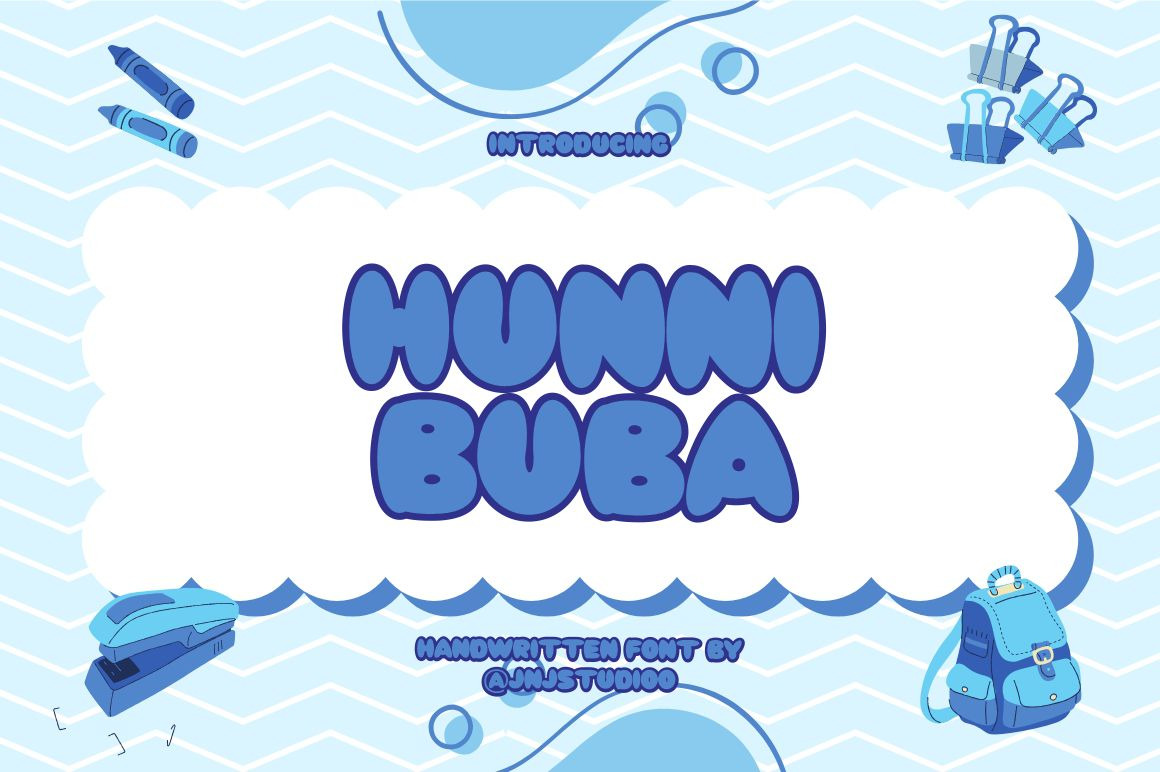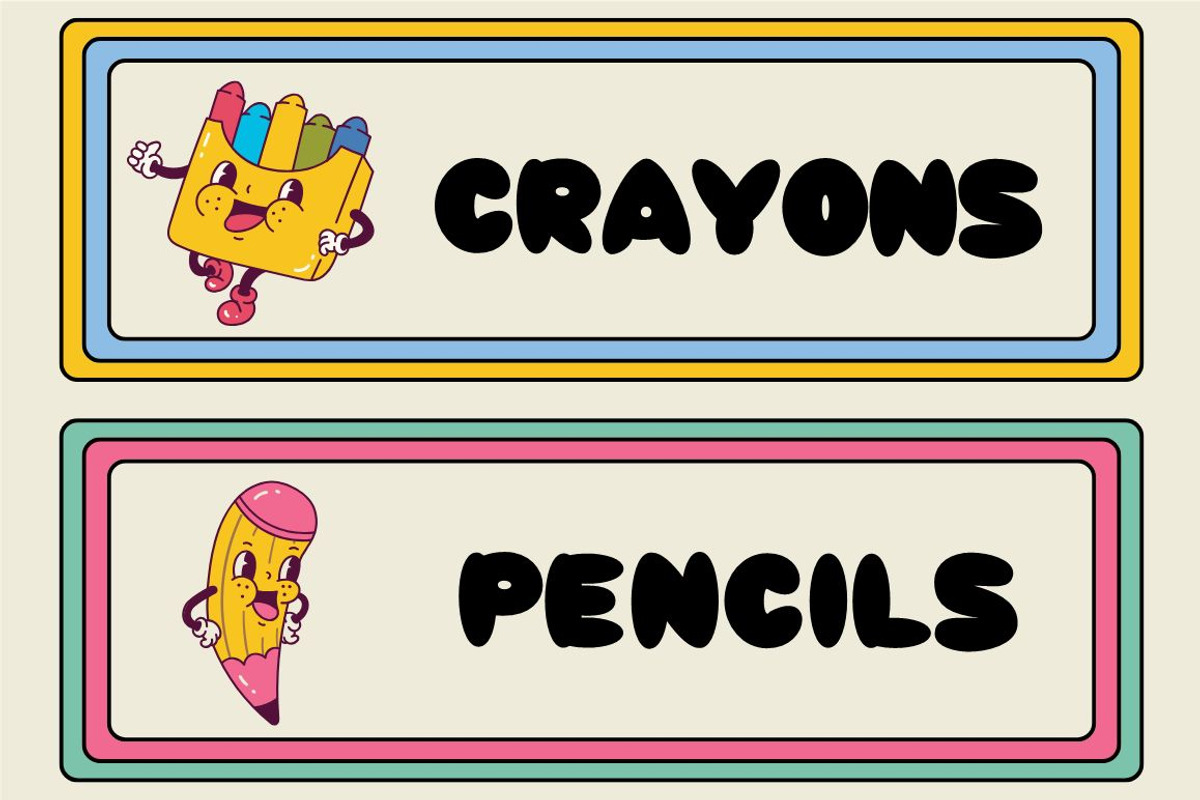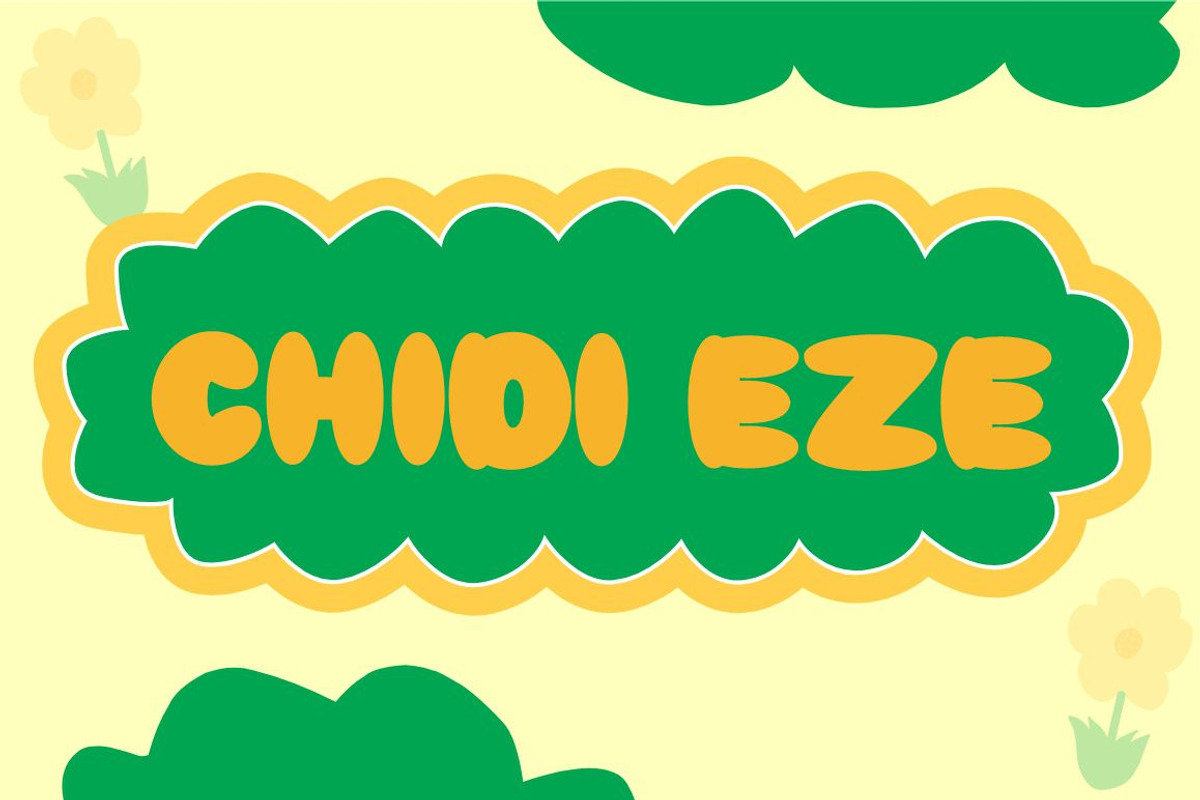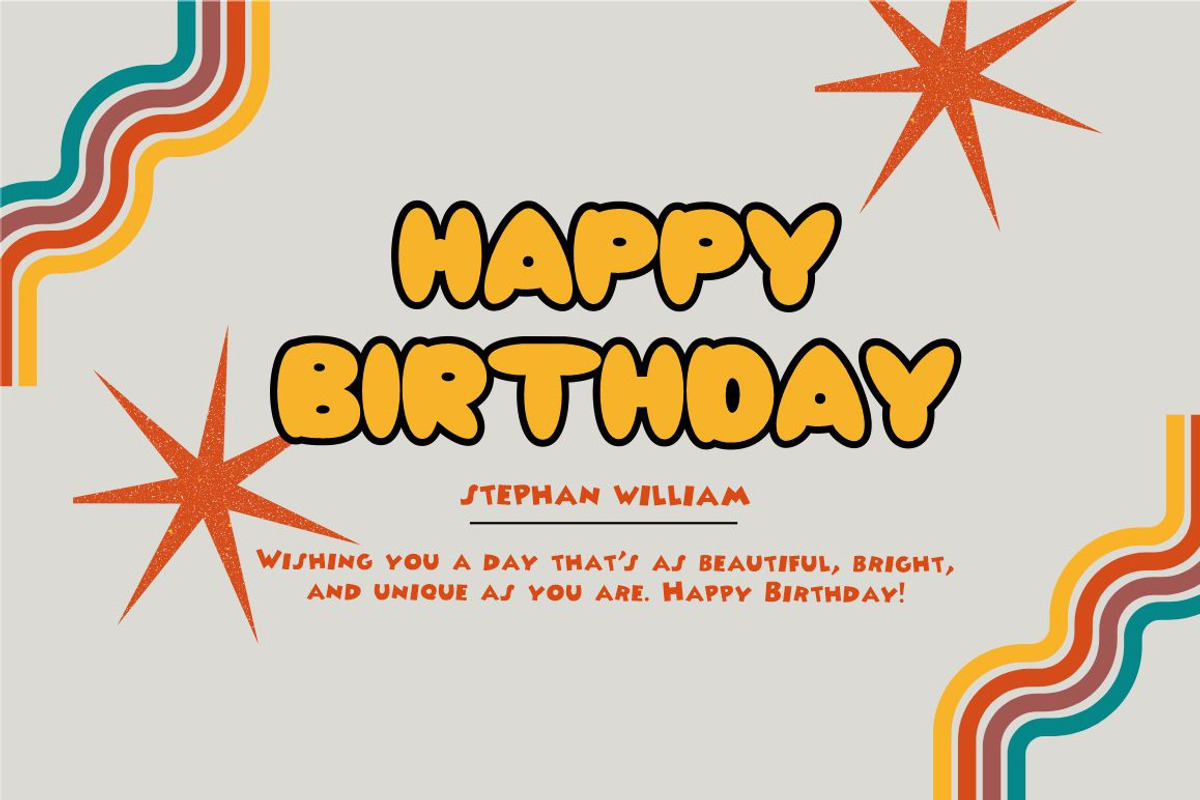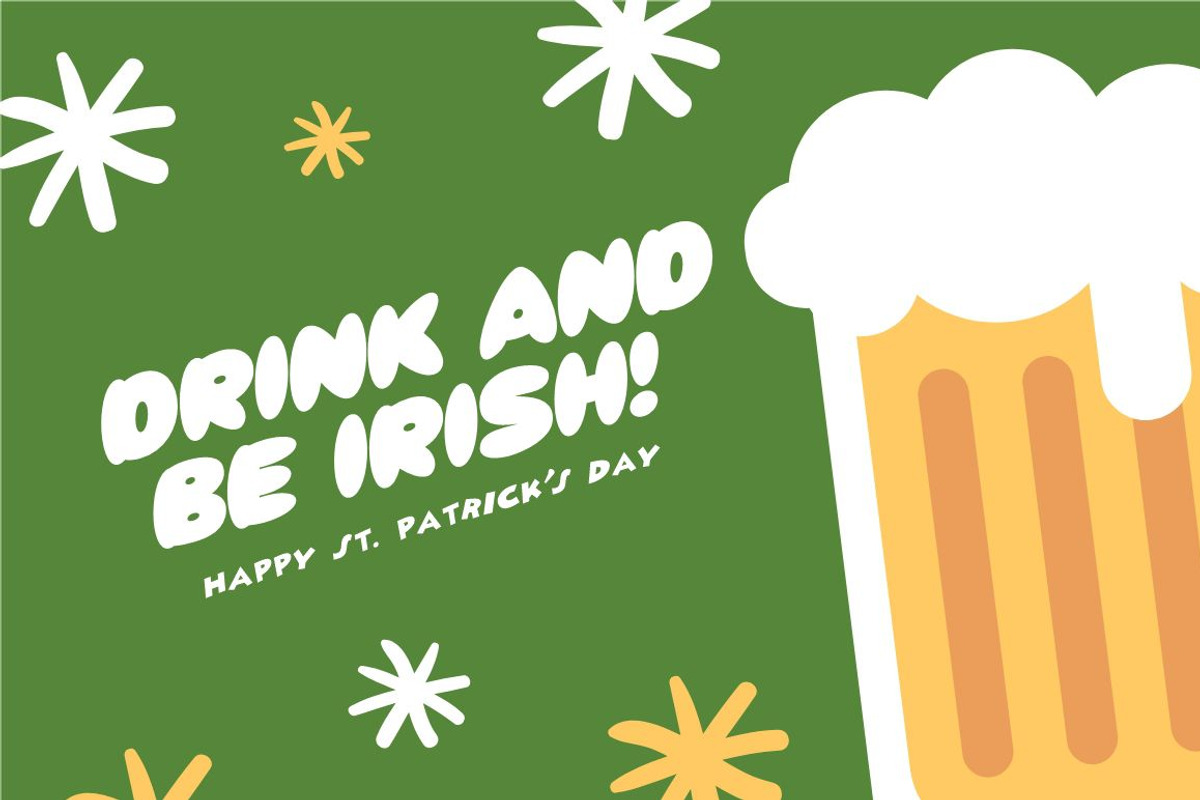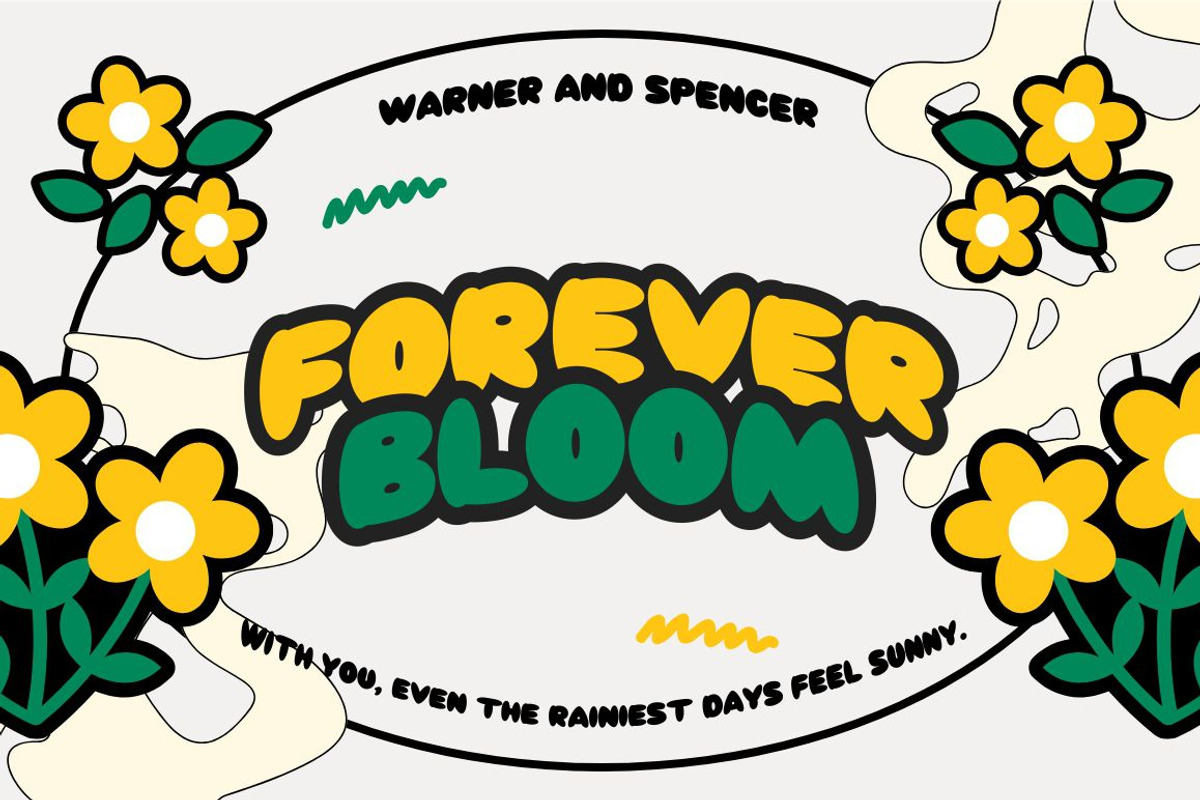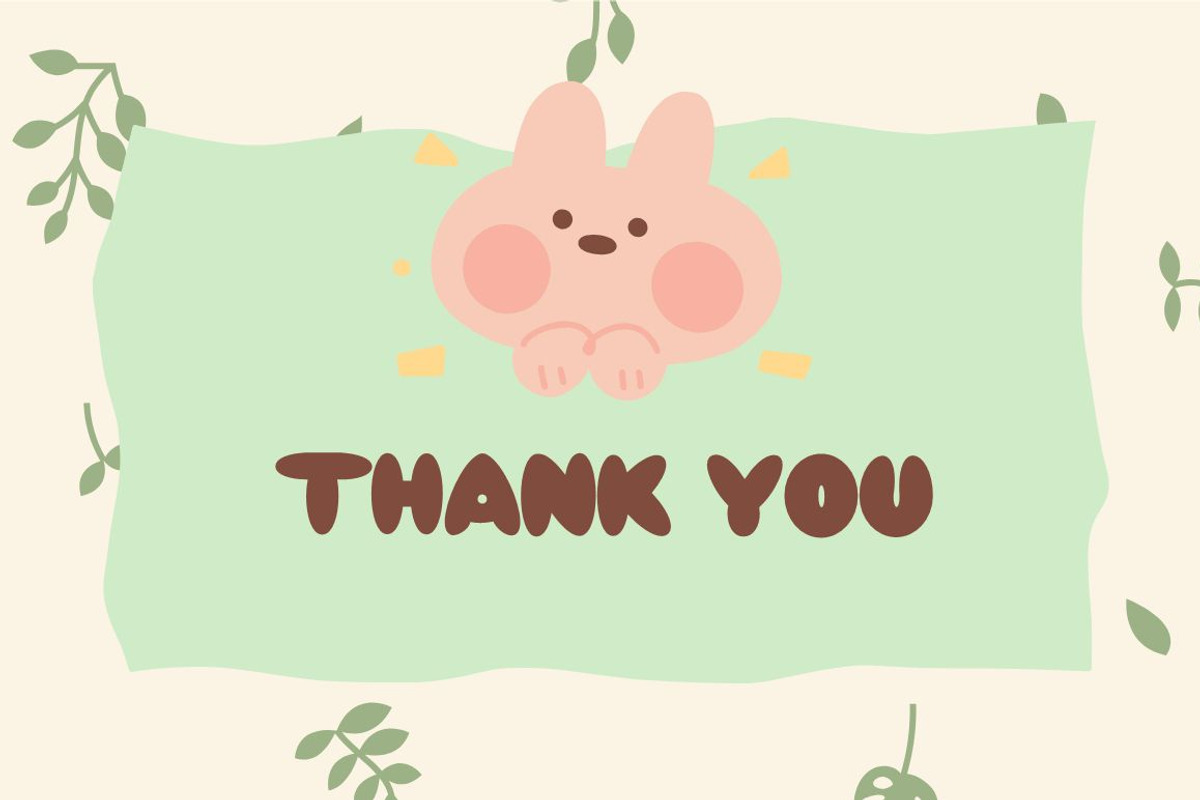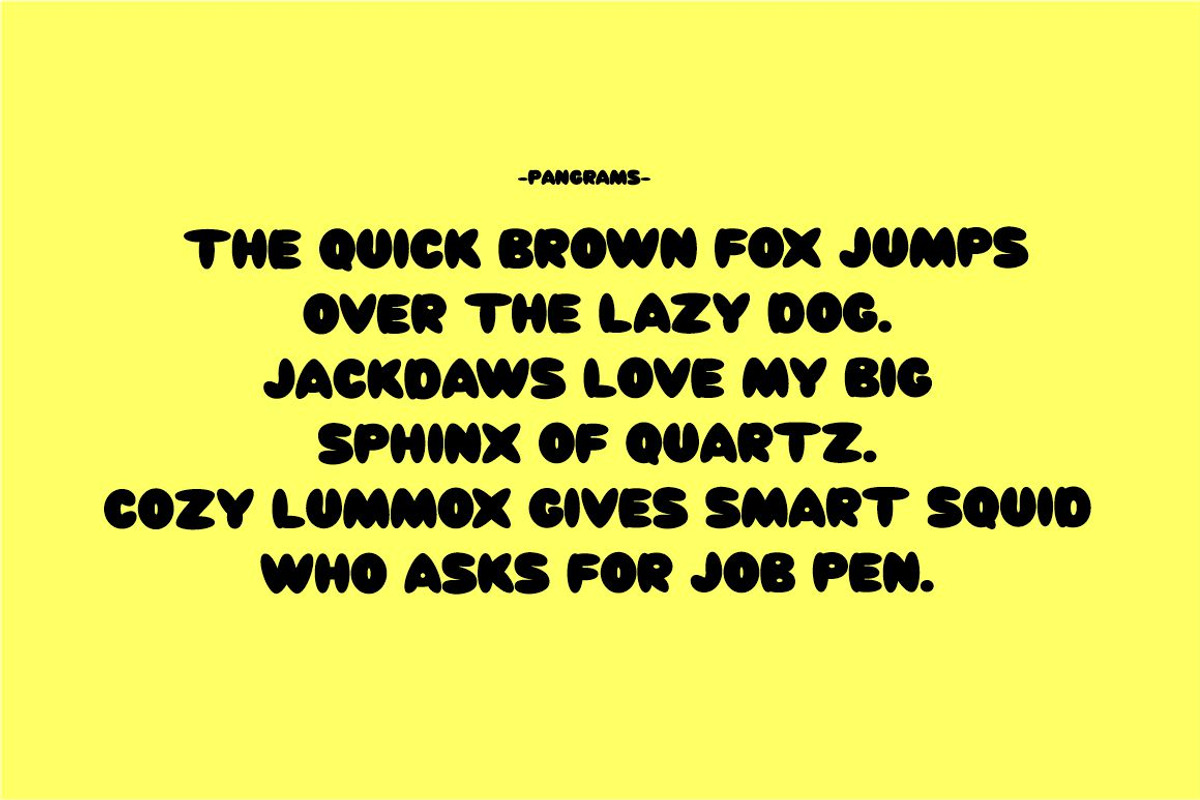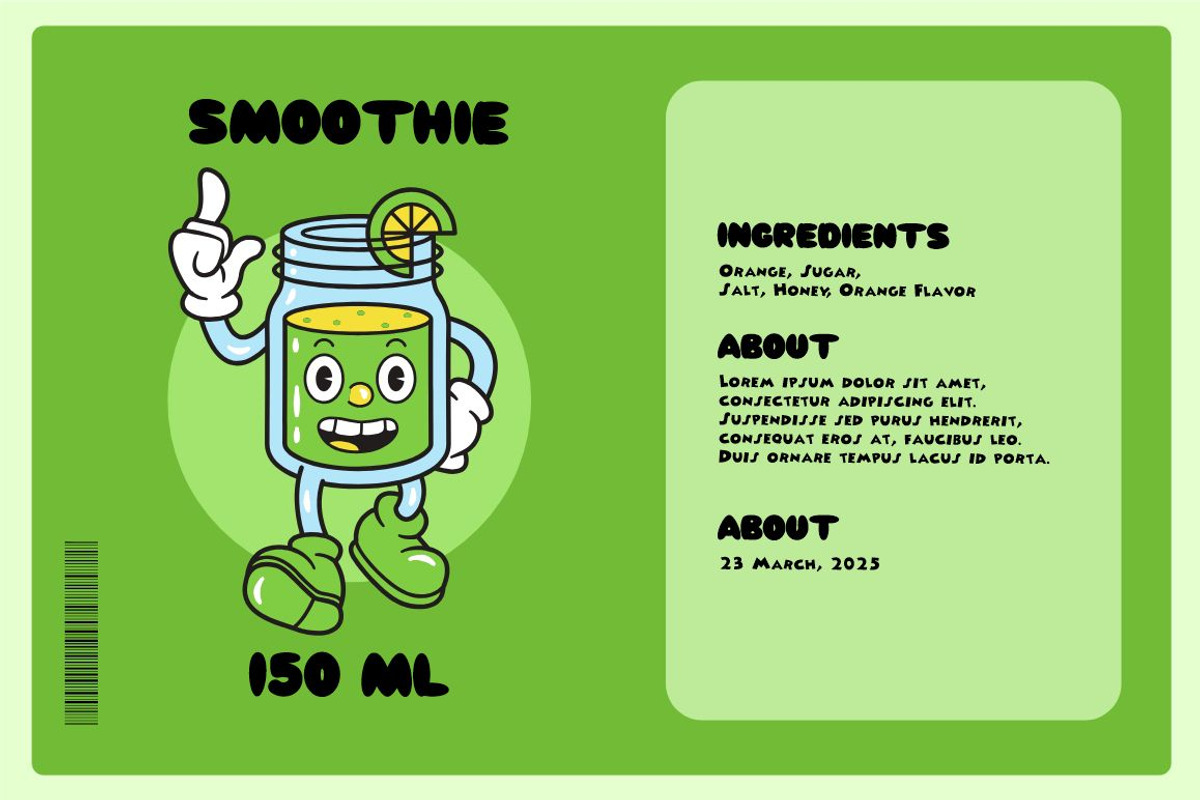
Hunni Buba Handwritten Font
Introducing "Hunni Buba" is a charming, handwritten-style typeface that brings a playful and cozy touch to any design. Each letter in Hunni Buba is crafted with a smooth, organic flow, capturing the casual warmth of natural handwriting. With its soft curves and slightly uneven edges, this font evokes a sense of friendliness and approachability, making it ideal for invitations, greeting cards, logos, and branding projects. Hunni Buba’s unique character offers versatility in both lowercase and uppercase styles, ensuring readability while adding a personal, whimsical feel to your work. Perfect for designers seeking a blend of warmth and authenticity!